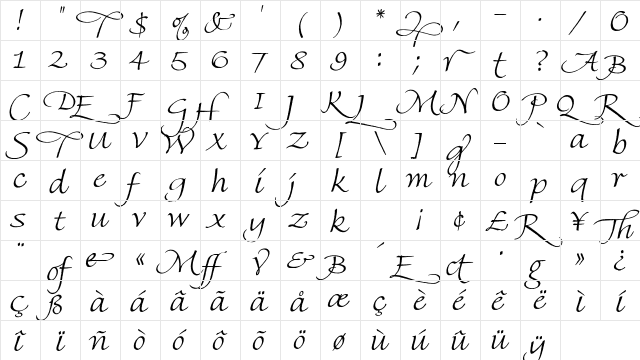
FineHand (SwashCaps) Regular
Design Context for FineHand (SwashCaps) Typeface
FineHand (SwashCaps) flows with the natural rhythm of handwritten lettering, making it ideal for designs that call for warmth and personal expression.
Font Pairing: Combine FineHand (SwashCaps) with a simple geometric sans for maximum contrast — the tension between flowing curves and clean structure is a classic typographic pairing.
Pro Tip: Use FineHand (SwashCaps) for short runs of text — names, titles, or taglines. Extended body copy in script faces tires the eye quickly.